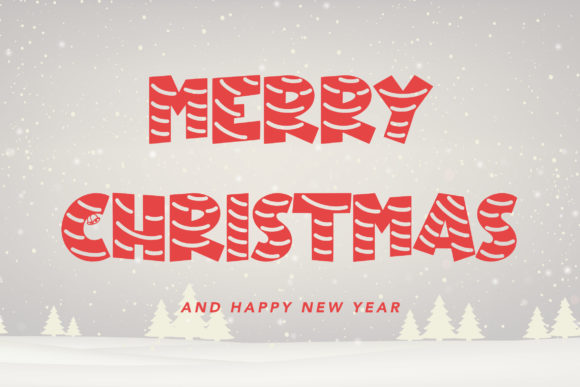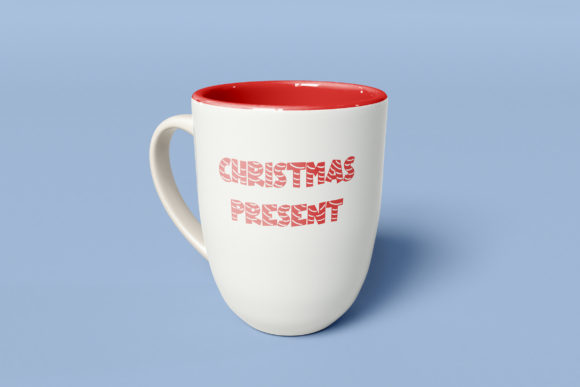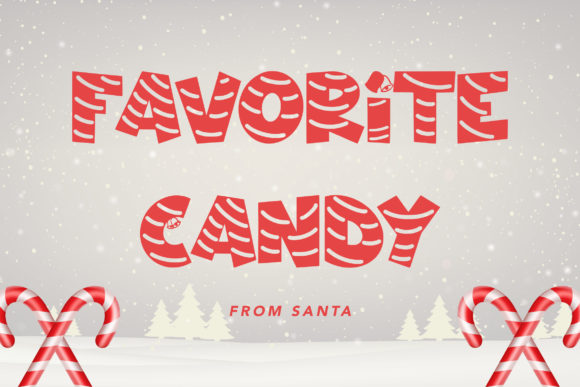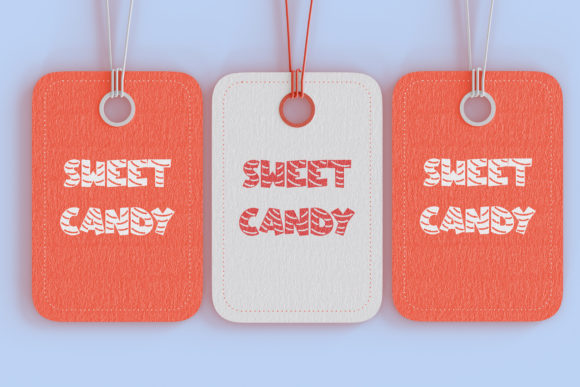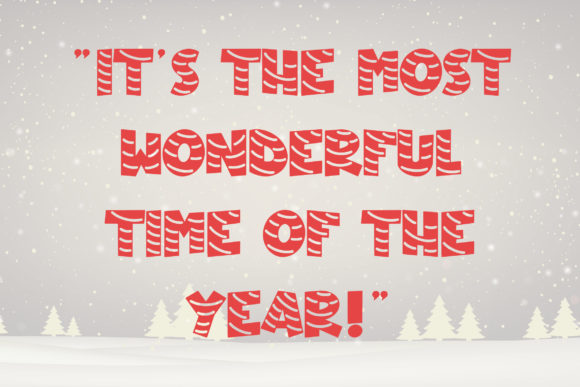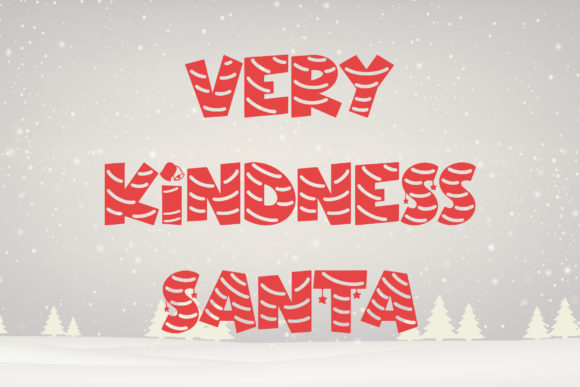
Introducing Christmas Candy Font: The Sweetest Addition to Your Holiday Designs
Are you looking for a font that captures the warmth and festivity of the holiday season? Look no further than Christmas Candy Font, a cool and festive display font designed to add a touch of fun and whimsy to your designs. In this article, we’ll dive into the features and benefits of Christmas Candy Font, and explore how it can elevate your holiday designs to the next level.
A Font that’s as Sweet as Candy
Christmas Candy Font is a carefully crafted display font that’s perfect for designers and crafters who want to add a dash of holiday cheer to their work. With its bold and playful lettering, this font is sure to grab attention and put a smile on anyone’s face. Whether you’re designing holiday cards, gift tags, or social media graphics, Christmas Candy Font is the perfect choice.
Key Features of Christmas Candy Font
- Festive and Fun: Christmas Candy Font is designed to evoke the warmth and joy of the holiday season. Its playful lettering and decorations make it perfect for creating festive designs that will delight your audience.
- High-Quality Design: This font is meticulously crafted to ensure high-quality design and clear readability, even at large sizes.
- Versatile: Use Christmas Candy Font for a variety of design projects, from holiday cards and gift tags to social media graphics and website headers.
Why Choose Christmas Candy Font?
So why choose Christmas Candy Font over other holiday fonts? Here are just a few reasons:
- Unique and Eye-Catching: Christmas Candy Font has a distinctive look that’s sure to grab attention and set your designs apart from the crowd.
- Emotional Connection: The festive and playful design of Christmas Candy Font is sure to evoke feelings of joy and nostalgia in your audience.
- Time-Saving: With Christmas Candy Font, you can create professional-looking holiday designs in no time, without having to spend hours designing from scratch.
How to Use Christmas Candy Font in Your Designs
Using Christmas Candy Font in your designs is easy. Here are a few tips to get you started:
- Pair with Other Fonts: Combine Christmas Candy Font with other fonts to create a unique and visually appealing design.
- Experiment with Colors: Try out different color schemes to find the perfect combination that matches your brand and design style.
- Add Decorations: Use graphics and decorations to add an extra touch of festivity to your designs.
Christmas Candy Font is perfect for designers and crafters who want to add a touch of holiday cheer to their work. Whether you’re creating:
- Holiday Cards: Use Christmas Candy Font to create beautiful and festive holiday cards that will delight your friends and family.
- Gift Tags: Add a personal touch to your gifts with custom gift tags featuring Christmas Candy Font.
- Social Media Graphics: Use Christmas Candy Font to create eye-catching social media graphics that will get your audience in the holiday spirit.